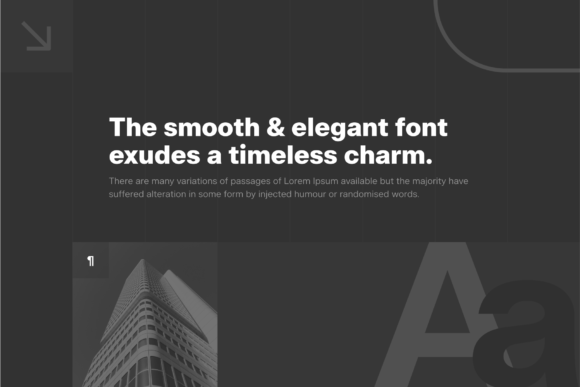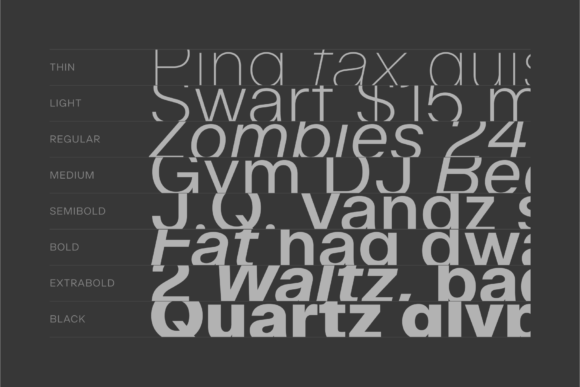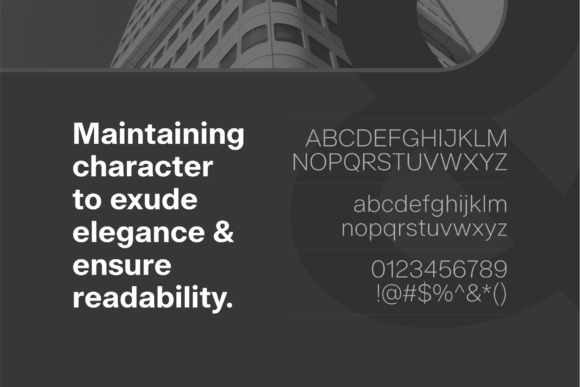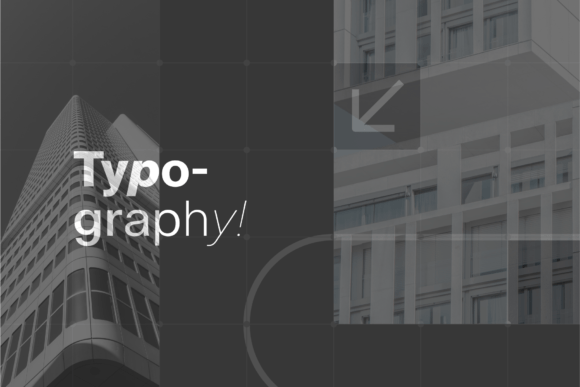
Introducing Certia Font: A Masterpiece of Elegance and Functionality
In the realm of typography, few font families have managed to strike a perfect balance between elegance and functionality. Certia, a meticulously crafted sans-serif font family, is one such exceptional typeface that has garnered attention for its refined design and versatility. With a comprehensive range of 16 fonts, including a beautifully designed italic variant, Certia offers an extensive range of language support, making it an ideal choice for diverse communication needs across the globe.
Unparalleled Readability and Elegance
Certia’s design philosophy revolves around achieving optimal readability without compromising on elegance. Its clean lines, precise curves, and carefully considered letter spacing ensure that the font remains clear and legible, even at smaller sizes. This makes it an excellent choice for editorial projects, such as newspapers, magazines, and books, where readability is paramount. Moreover, Certia’s inherent elegance ensures that it can be seamlessly integrated into branding endeavors, digital interfaces, and other design contexts where sophistication is key.
A Versatile Typeface for Diverse Design Needs
One of the standout features of Certia is its versatility. The font family comprises 16 fonts, including a range of weights and a beautifully designed italic variant. This extensive range allows designers to choose the perfect weight and style to suit their design requirements, whether it’s for headings, body text, or captions. Furthermore, Certia’s comprehensive language support ensures that it can be used for a wide range of languages, making it an indispensable asset for designers working on global projects.
Refined Craftsmanship for Timeless Design
Certia represents not just a font but an embodiment of refined craftsmanship. Its design is characterized by attention to detail, precision, and a deep understanding of typographic principles. The result is a typeface that exudes an aura of sophistication and elegance, making it an excellent choice for designers seeking a timeless and versatile solution. Whether used for print or digital applications, Certia’s refined design ensures that it will remain a relevant and stylish choice for years to come.
Key Features of Certia Font
- 16 font variations: Including a range of weights and a beautifully designed italic variant.
- Comprehensive language support: Catering to diverse communication needs across the globe.
- Optimal readability: Ensuring clear and legible text, even at smaller sizes.
- Elegant design: Exuding an aura of sophistication and refinement.
- Versatile typeface: Suitable for editorial projects, branding endeavors, digital interfaces, and more.
Why Choose Certia Font?
For designers and crafters seeking a reliable and stylish typeface solution, Certia is an excellent choice. Its unique blend of elegance and functionality makes it an indispensable asset for a wide range of design projects. Here are just a few reasons why designers choose Certia:
- Consistency: Certia’s design ensures consistency in both form and readability, making it perfect for large-scale projects.
- Flexibility: With 16 font variations and comprehensive language support, Certia can be used for a wide range of design applications.
- Timeless design: Certia’s refined craftsmanship ensures that it will remain a stylish and relevant choice for years to come.
| Author | Aantebas |
In conclusion, Certia font is a masterpiece of elegance and functionality, offering a unique blend of style, versatility, and readability. Its comprehensive range of font variations, language support, and refined design make it an indispensable asset for designers and crafters seeking a timeless and versatile typeface solution. Whether used for editorial projects, branding endeavors, or digital interfaces, Certia is sure to impress with its sophistication and elegance.